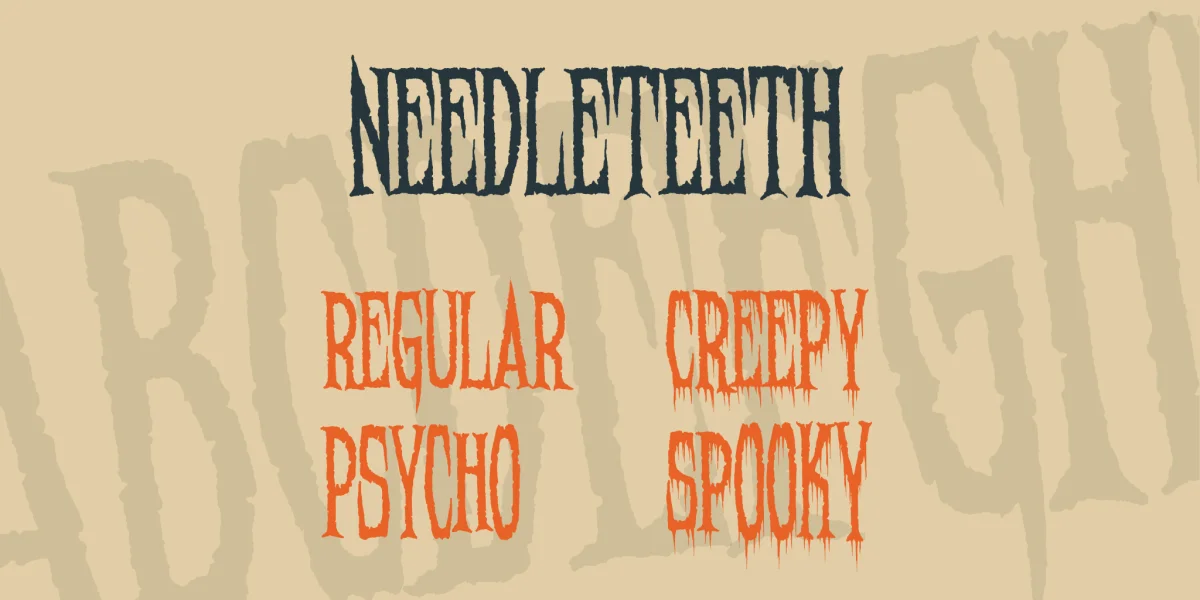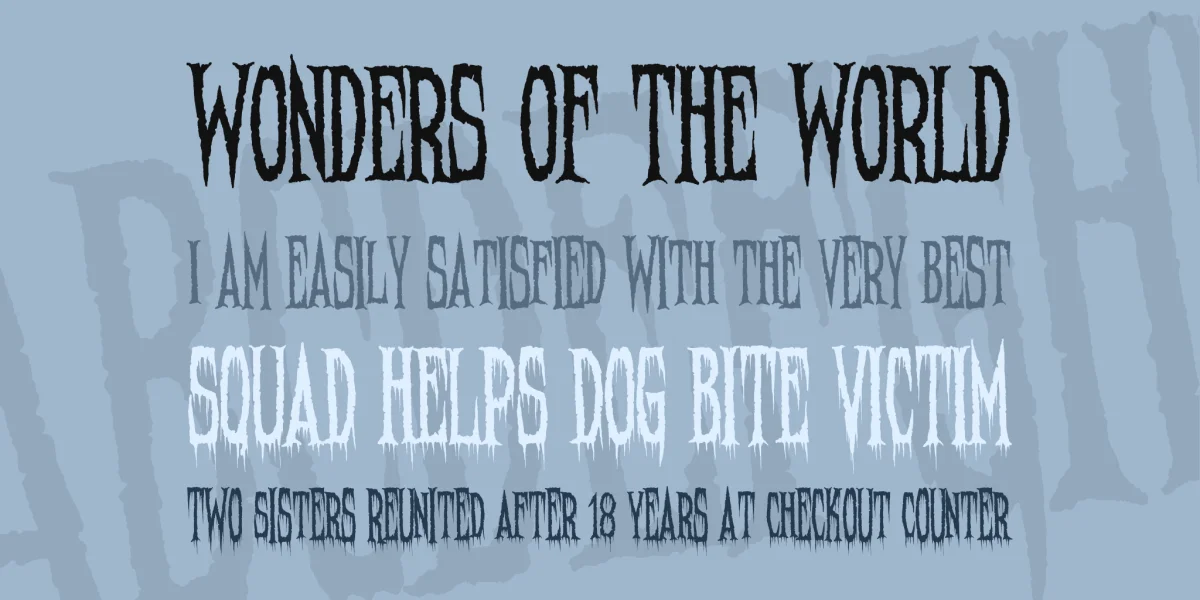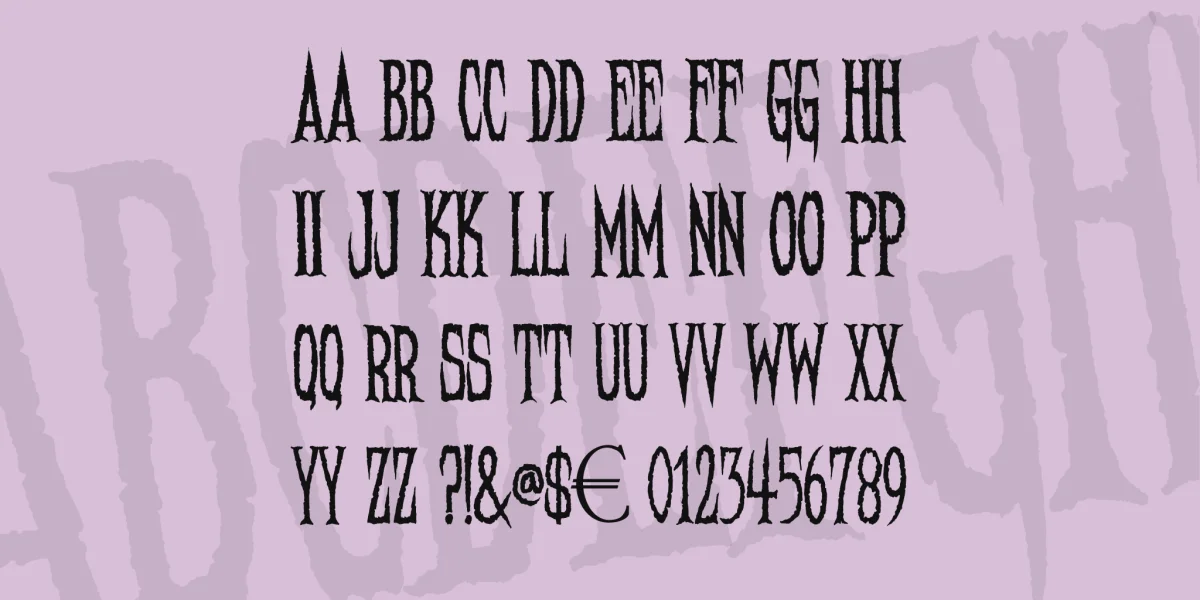
Created 2011, hand-lettered on Halloween night. This is a free font, and I mean FREE. Use it however you want, for whatever you want. If you make something cool with it, I'd love to see it - email me at  and tell me about it. If you offer it for download on your own font site, PLEASE include this Read Me. That's not too much to ask, is it? This font is intended for specialty and graphic uses. It will look just awful if used in a paragraph format. The upper and lower cases of Needleteeth Psycho and Needleteeth Spooky alternate sizes - mix and match the cases to GeT tHaT sTaGgErEd LoOk. For more free fonts and other downloadable goodies, visit www.sinisterfonts.com